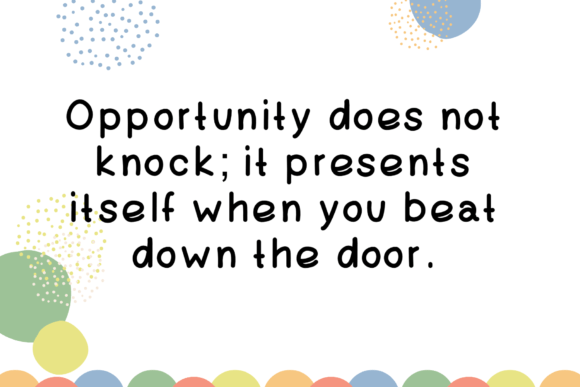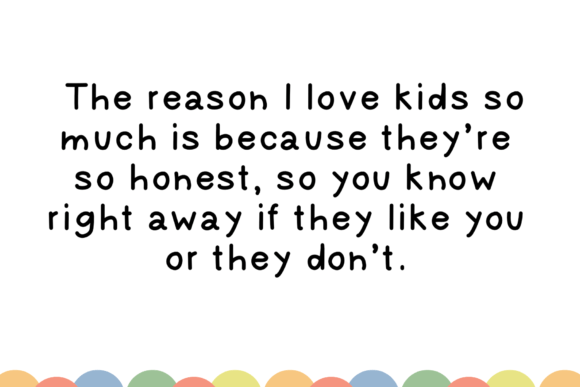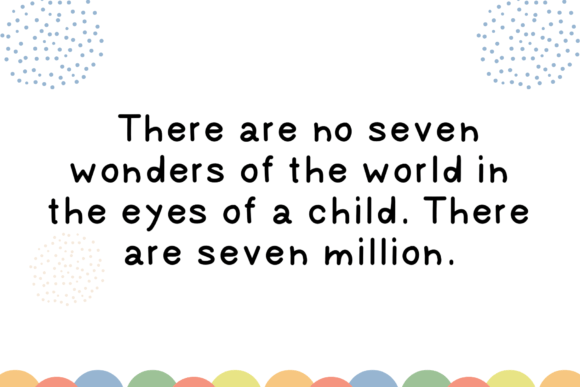
About Sunny Font
Introducing “Sunny Font,” a handwritten typeface crafted for beautiful content related to education, craft, nature, love, and emotion. This versatile font is a perfect addition to all your creative projects, bringing a touch of warmth and personality to your designs.
The handwritten and friendly qualities of Sunny Font make it well-suited for projects that require a personal and emotive touch. Whether you’re working on educational materials, craft-related designs, or anything that involves nature and love, this font adds a lovely and heartfelt feel.
In the realm of education, Sunny Font becomes an engaging and approachable choice. Its handwritten style creates a connection with the audience, making educational content more relatable and enjoyable.
For craft-related projects, Sunny Font contributes to a whimsical and creative atmosphere. Its charming letters add a handmade touch, making your craft materials more inviting and appealing.
In nature-themed designs, Sunny Font enhances the overall aesthetics, bringing a touch of organic and friendly vibes. Whether it’s for environmental campaigns, nature-inspired artwork, or outdoor event promotions, this font adds a natural and emotive feel.
When it comes to conveying emotions and love, Sunny Font becomes a beautiful choice for various projects, such as greeting cards, love letters, and heartfelt messages. Its handwritten charm adds a personal and warm touch to your words.
The versatility of Sunny Font ensures that it can adapt to a variety of design contexts, making it a valuable tool for a range of creative projects.
In summary, Sunny Font is more than just a font; it’s a creative tool designed to bring a handwritten, lovely, and emotive charm to your projects. Whether you’re working on education, craft, nature, or expressing love, let Sunny Font be the typeface that adds a touch of warmth and personality to your creative endeavors.